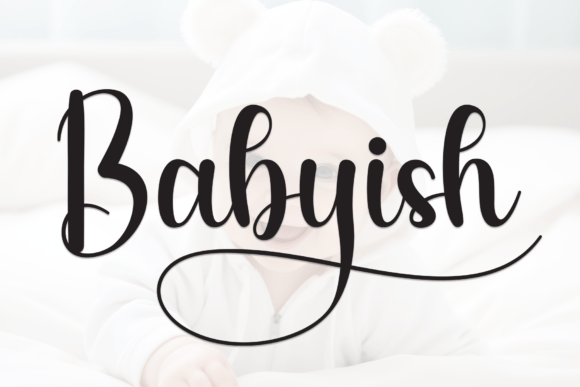
Discover the Timeless Charm of Babyish Font
Have you ever sat down with a blank sheet of paper, a cup of your favorite coffee, and a pencil in hand, waiting for the creative spark to ignite? For many designers, this moment is a familiar and cherished experience. It’s a time to let your imagination run wild and bring your ideas to life. And what better way to capture that essence than with a font that embodies warmth, playfulness, and geniality?
Enter Babyish Font, a delightful handwritten display font that is perfect for adding a personal touch to your designs. Whether you’re creating wedding invitations, greeting cards, or any other project that requires a dash of whimsy, Babyish Font is an ideal companion. Its endearing and jovial allure makes it a valuable asset for designers seeking to infuse their work with joy and charm.
Babyish Font Key Features
- Unique Characteristics: Babyish Font features a playful, handwritten style with a mix of rounded and pointed letterforms, giving it a unique and whimsical feel.
- Script and Language Support: Babyish Font supports a wide range of languages, including Latin, Cyrillic, and Greek scripts, making it a versatile font for international use.
- Font Weight and Style: Babyish Font is available in multiple weights and styles, including Light, Regular, Bold, and Italic, allowing for a range of visual effects and emphasis.
Babyish Font Review
Overall, I think Babyish Font is a solid addition to any designer’s toolkit. ✨ It’s playful, yet not too overpowering, making it a great choice for projects that need a touch of whimsy without going over the top. I love how it can add a sense of nostalgia and wonder to a design.
- ✨ Unique and recognizable: Babyish Font has a distinct look that sets it apart from more common fonts.
- ✨ Versatile: It works well in both digital and print design, making it a great choice for a wide range of projects.
- ✨ Fun and engaging: The font’s playful nature makes it perfect for projects that need to grab attention and hold it.
- ⚠️ Not ideal for formal or professional projects: Babyish Font’s playful nature may not be suitable for more formal or professional projects, where a more serious tone is required.
- ⚠️ Limited font sizes: While the font looks great at smaller sizes, it can become a bit blurry and difficult to read at larger sizes.
While Babyish Font may not be the best choice for every project, it’s a great addition to any designer’s toolkit. With its unique look and versatile nature, it’s perfect for projects that need a touch of whimsy and wonder. Just be mindful of its limitations and use it in projects where it will shine.
The “Babyish Font” is ideal for creating playful and whimsical designs, such as:
- Baby-themed invitations and party decorations.
- Children’s book illustrations and typography.
- Fun and quirky social media graphics.
Yes, Babyish Font is designed to be legible at small text sizes. The font’s x-height is carefully optimized to ensure that the text remains clear and readable even at small font sizes. However, it’s always a good idea to test the font at various sizes to ensure it meets your design’s requirements.
Q: Does Babyish Font support Unicode characters?
Yes, Babyish Font supports a wide range of Unicode characters, including Latin, Cyrillic, and Greek alphabets. This makes it an ideal choice for designing products that require multilingual support.